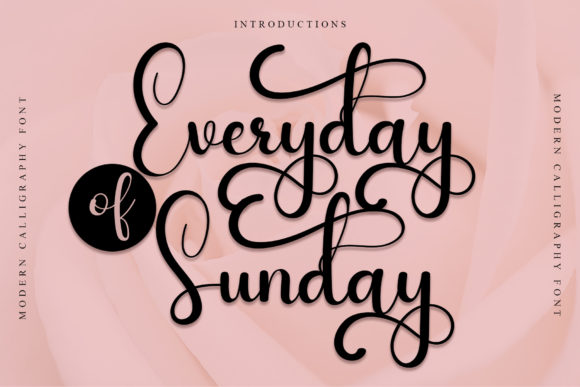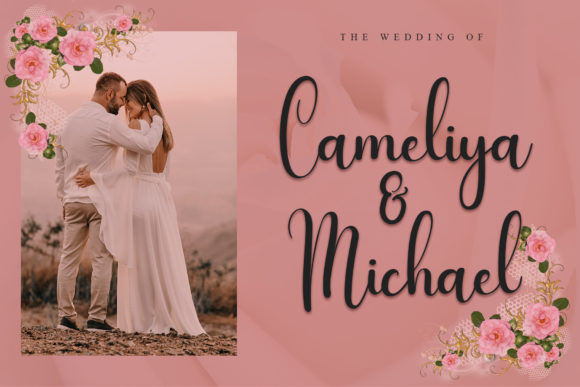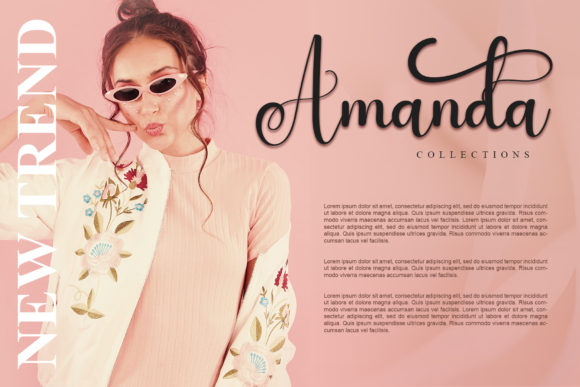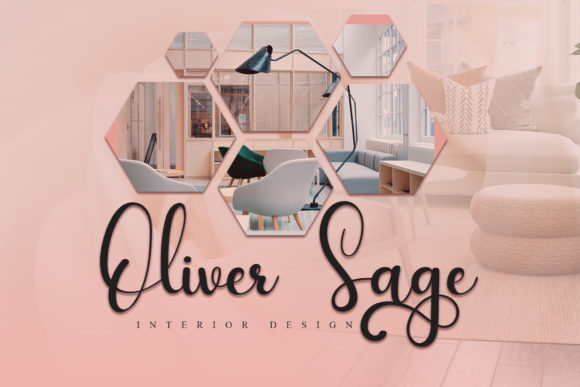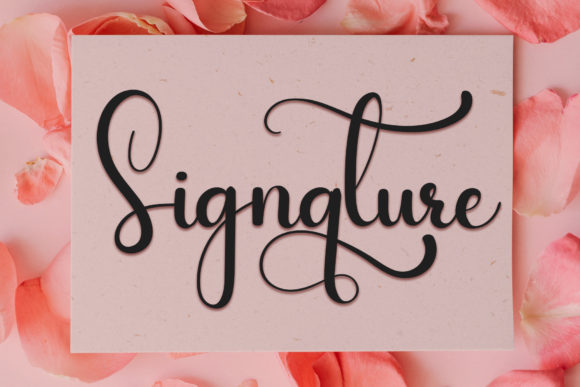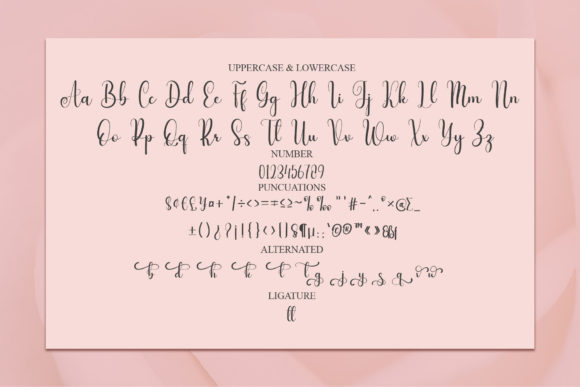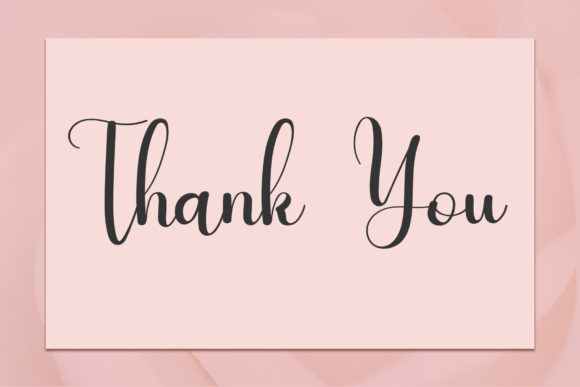
Everyday of Sunday Font
About Everyday of Sunday Font
Everyday Of Sunday is a captivating and enchanting script font that effortlessly captures the essence of elegance and creativity. This font brings a touch of magic to every design, transforming your creative ideas into exquisite pieces of art that are sure to leave a lasting impression.
The carefully crafted letterforms of Everyday Of Sunday exude a sense of grace and sophistication, making it an excellent choice for a wide range of applications. Whether you’re seeking fonts to enhance your Instagram posts, create eye-catching graphics, or embark on DIY projects, this font has the versatility to meet your needs.
For Instagram and social media platforms, Everyday Of Sunday adds a unique and captivating element to your posts. Its magical script style draws the viewer’s attention, making your content stand out in a crowded digital landscape. Whether you’re sharing quotes, announcements, or promotional material, this font’s elegance and charm enhance the visual appeal of your posts.
When it comes to DIY projects, Everyday Of Sunday becomes an indispensable tool in your creative arsenal. From personalized gifts to handmade crafts, this font transforms ordinary projects into extraordinary works of art. Its enchanting quality adds a touch of wonder and beauty to your creations, making them truly memorable and special.
One of the standout features of Everyday Of Sunday is its ability to transform any creative idea into a true masterpiece. Its flowing and elegant script seamlessly adapts to various design contexts, ensuring that your projects are elevated to new levels of beauty and sophistication. Whether you’re designing invitations, flyers, posters, or any other type of visual content, this font adds a touch of magic that captivates your audience.
Everyday Of Sunday’s combination of elegance and creativity is further enhanced by its calligraphy-inspired style. The carefully designed curves and strokes of each letter convey a sense of craftsmanship and artistry, making it a font that truly embodies the essence of handmade charm.
In summary, Everyday Of Sunday is a magical script font that adds a touch of elegance and enchantment to every creative endeavor. Its versatility makes it a valuable asset for a wide range of projects, from social media posts to DIY crafts. With this font, you have the power to transform your ideas into stunning pieces of art that leave a lasting and magical impression.